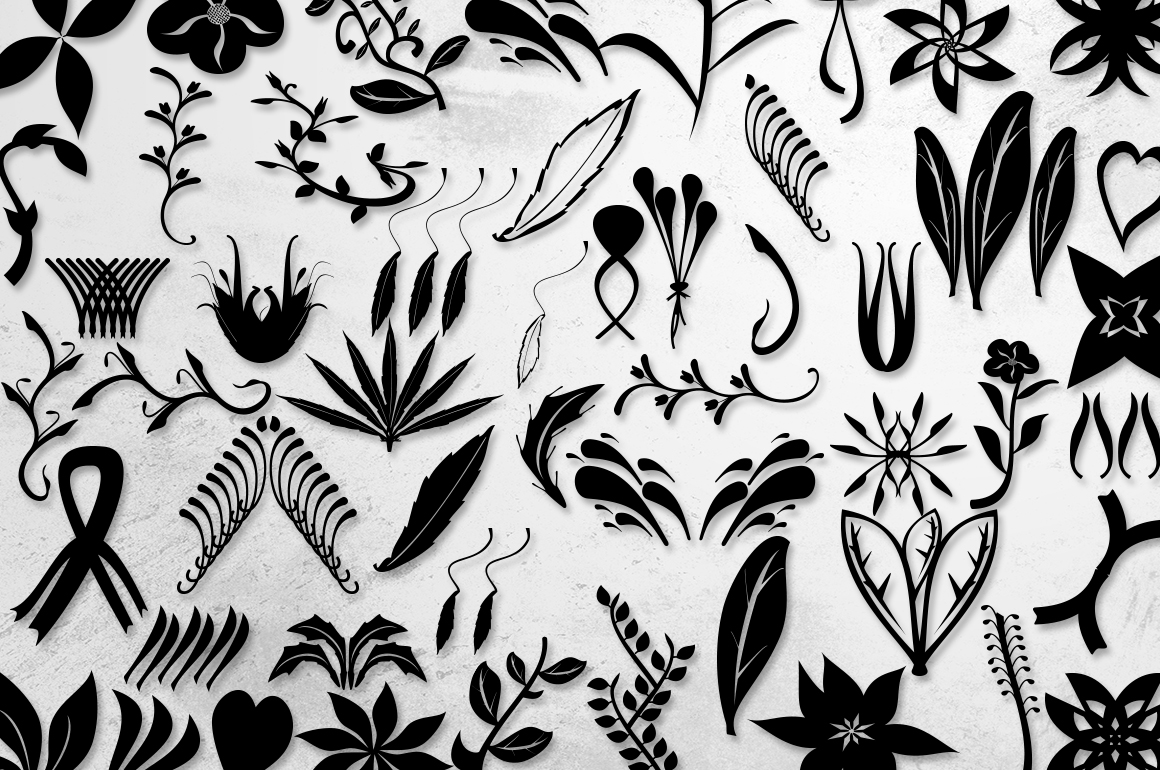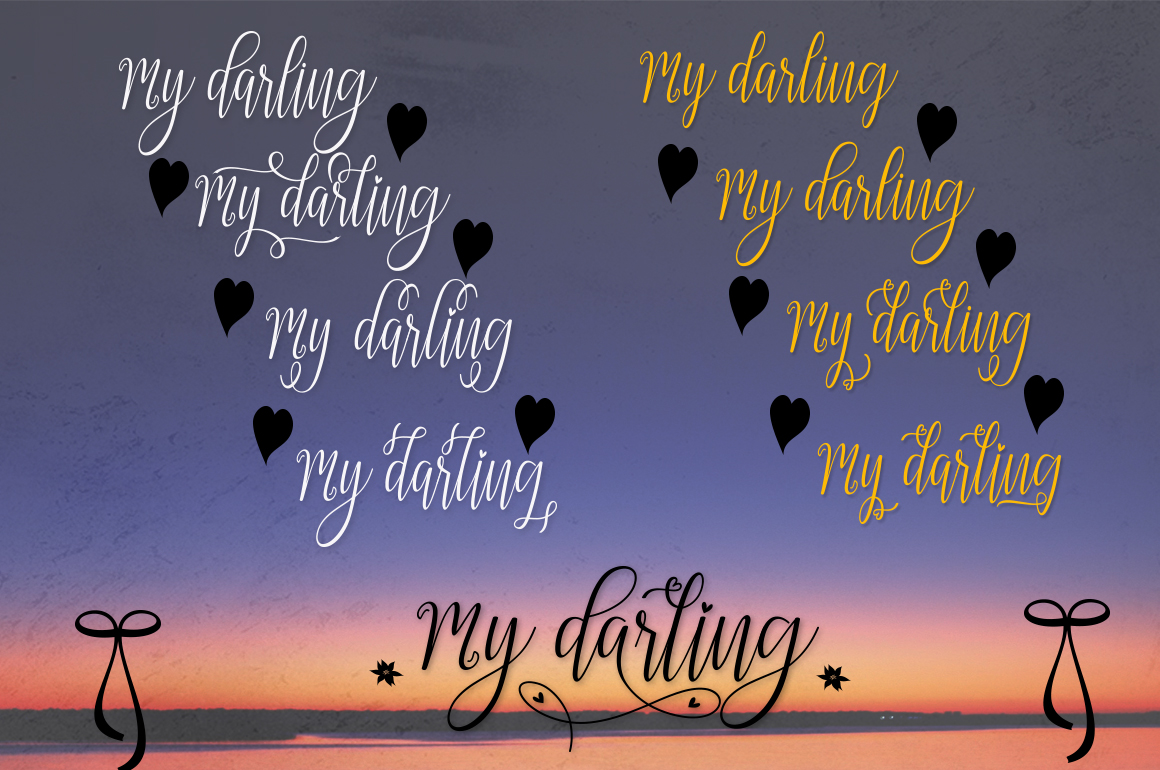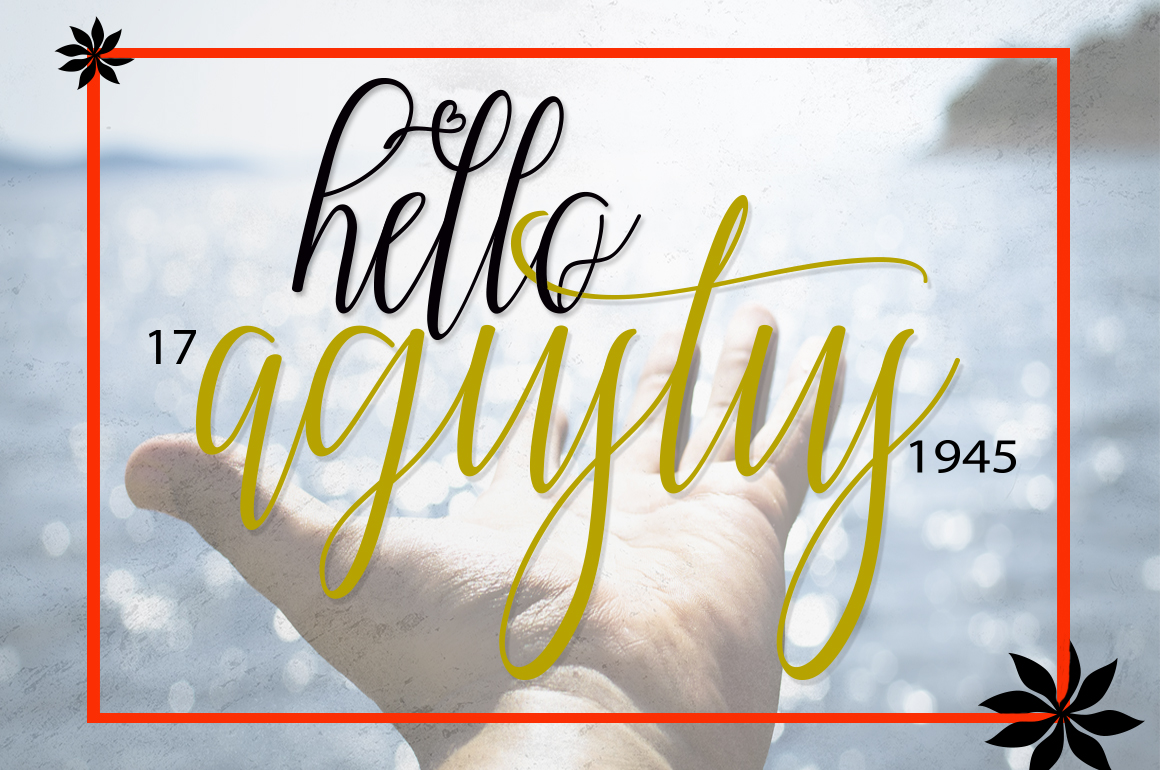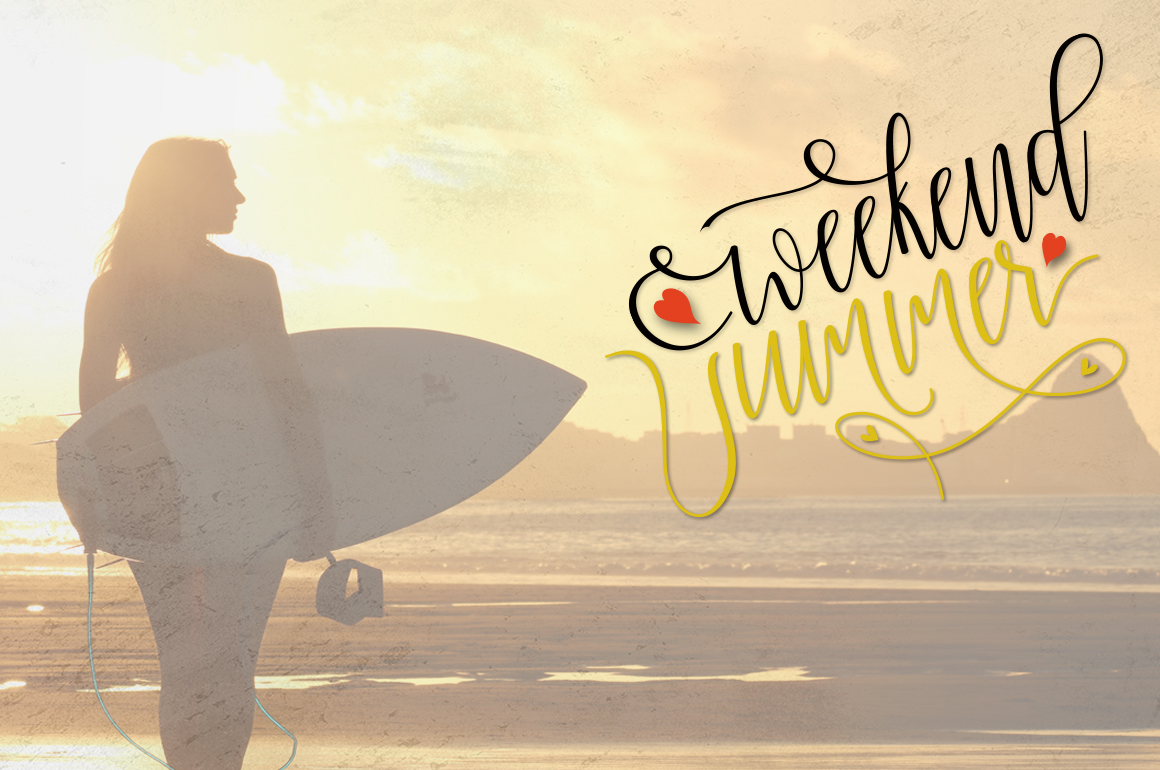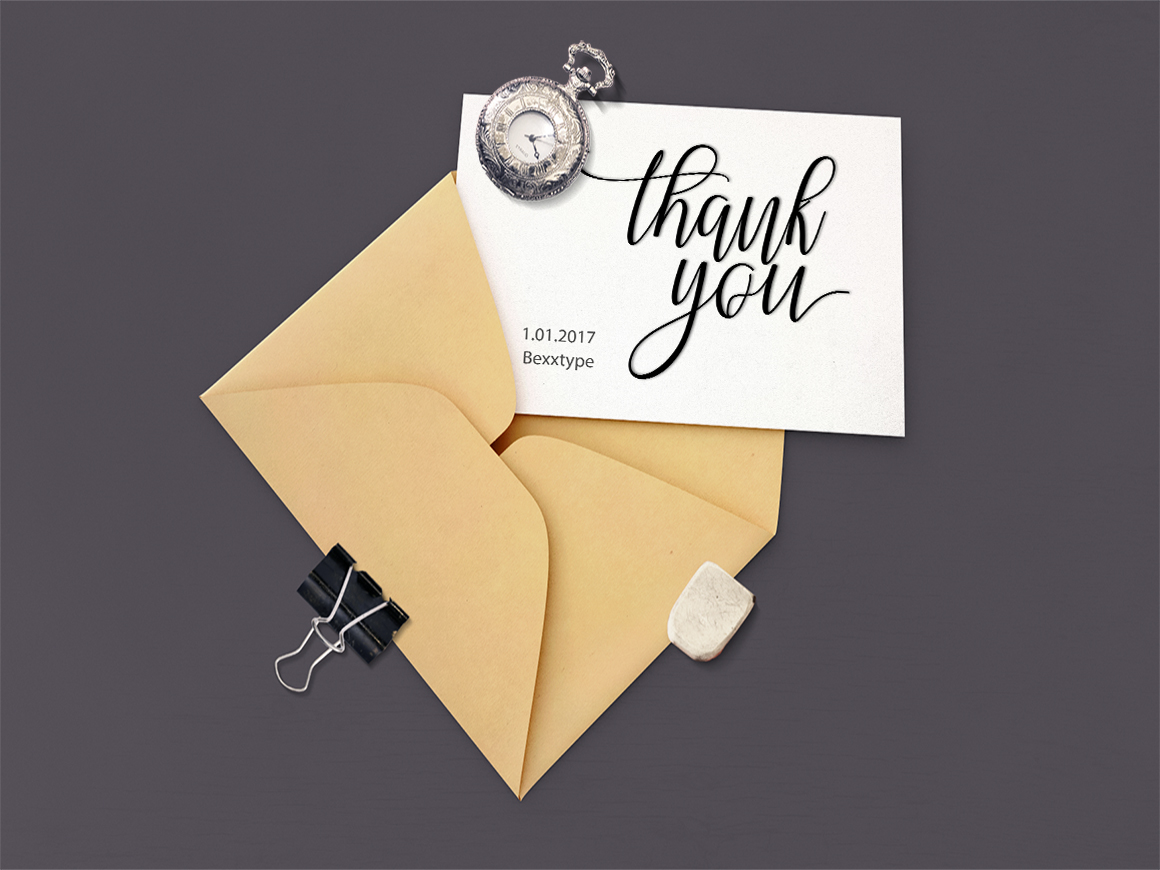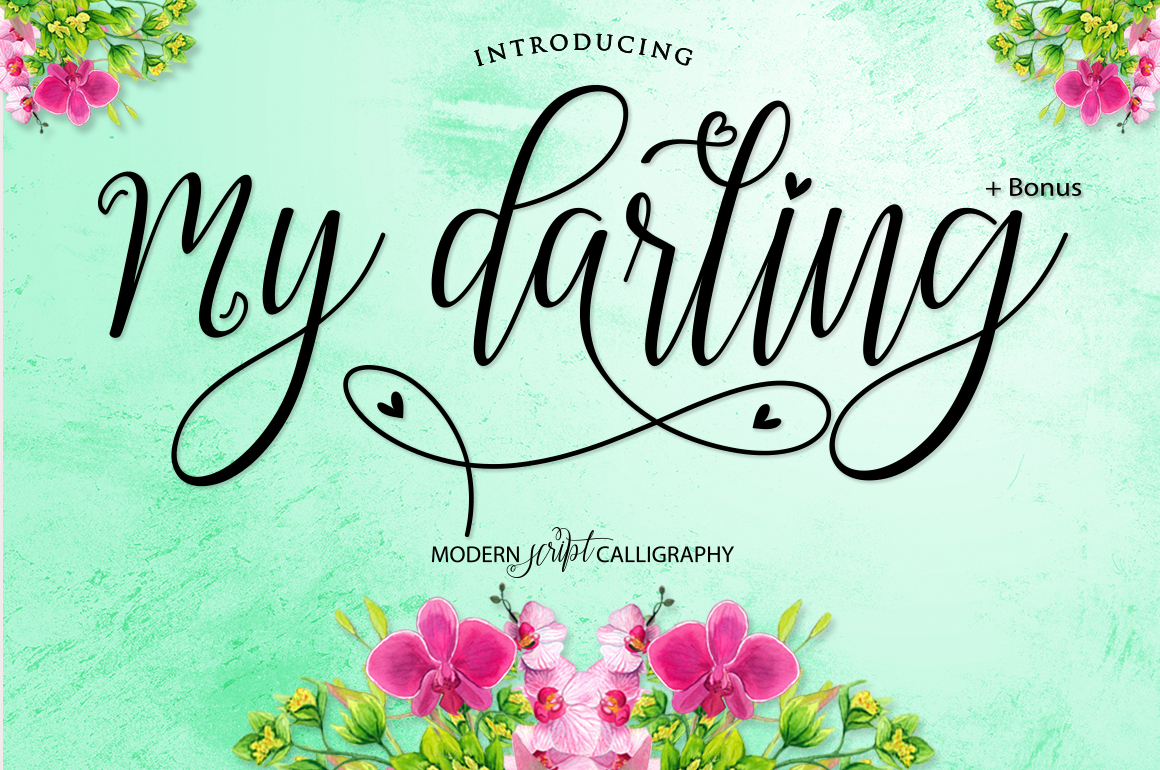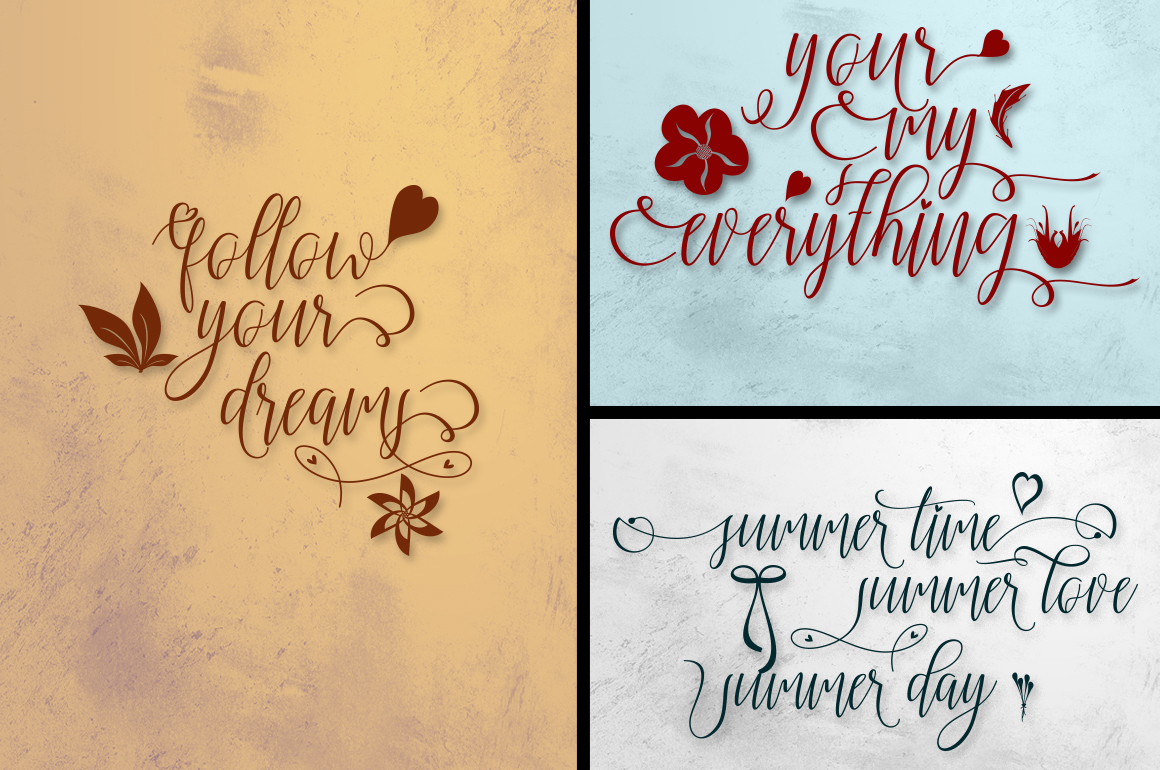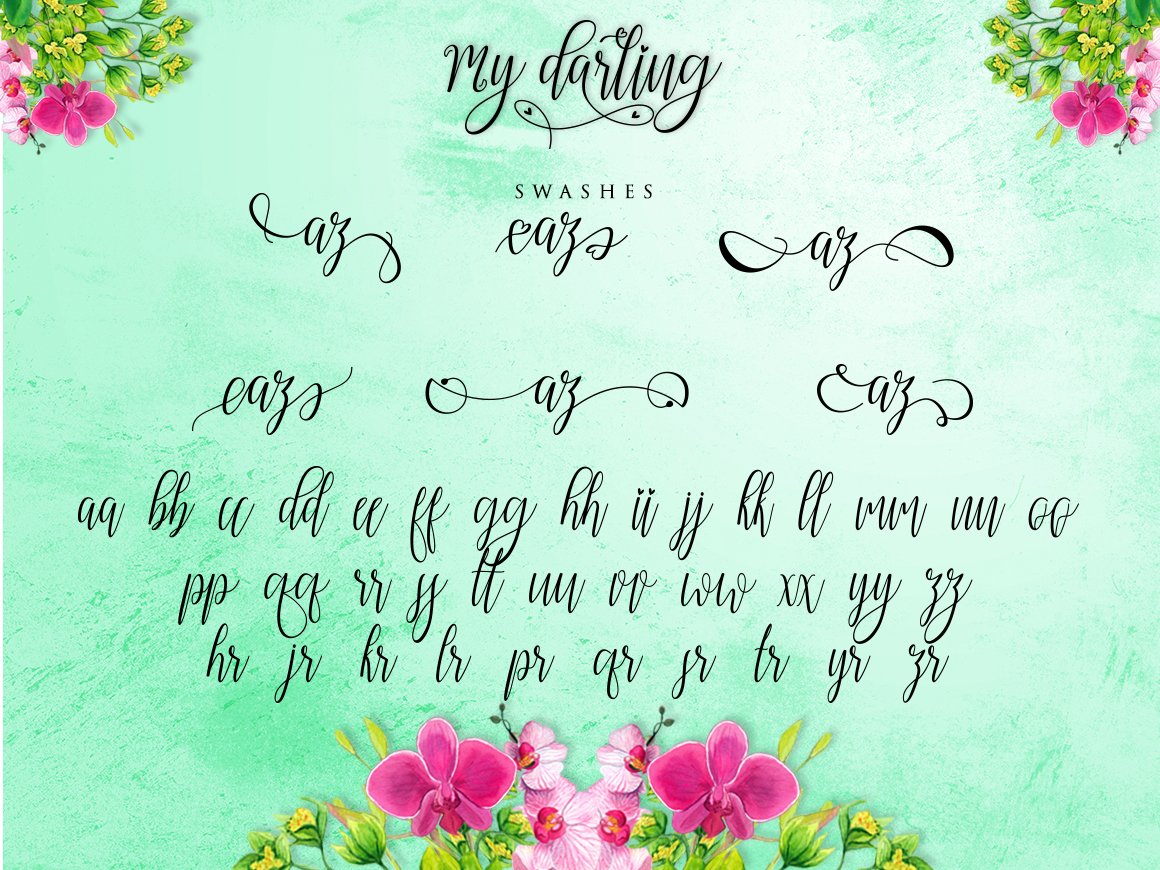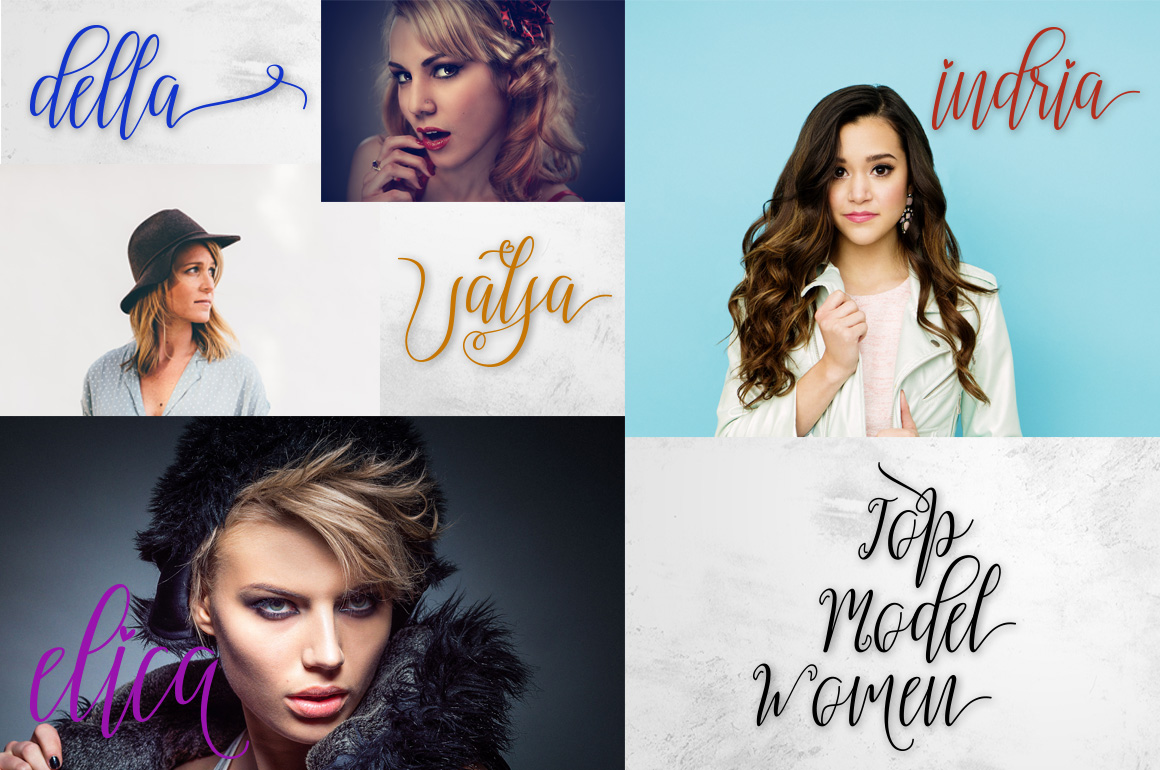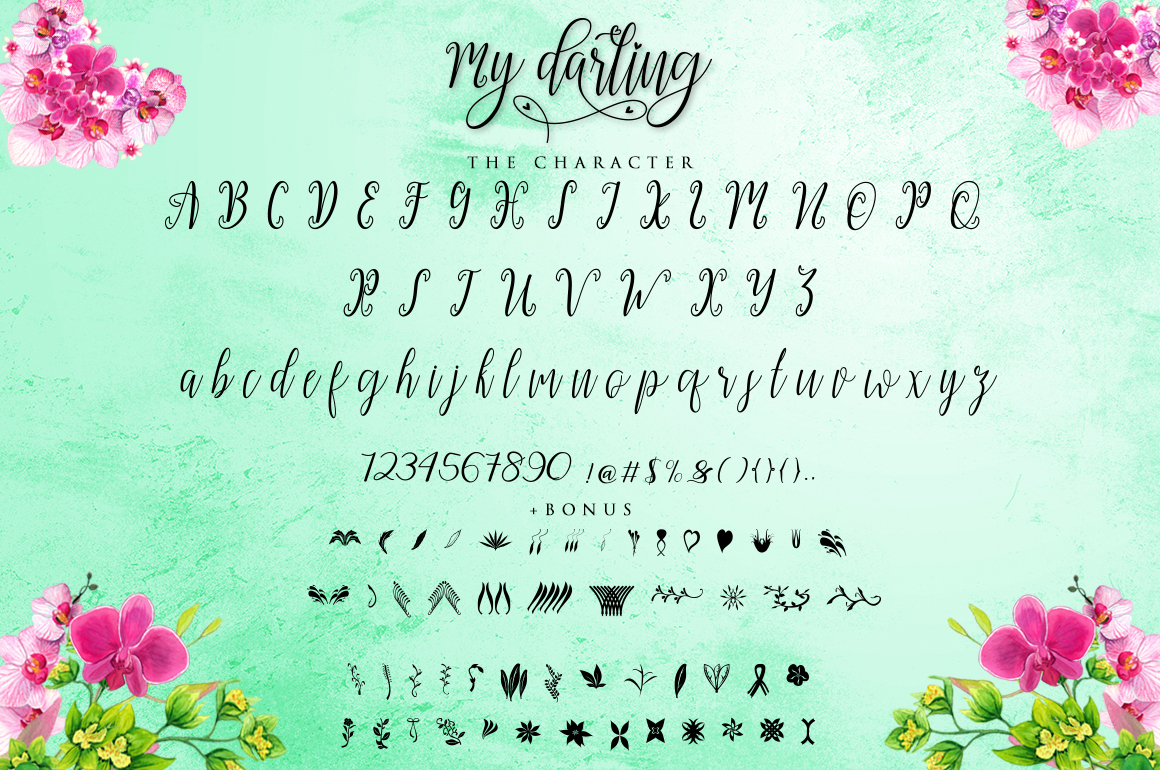
My Darling Font
About My Darling Font
My Darling is a modern script font featuring a staggering 817 unique glyphs. This font has been carefully crafted by hand and digitally optimized.
My Darling comes including a decorative bonus script.